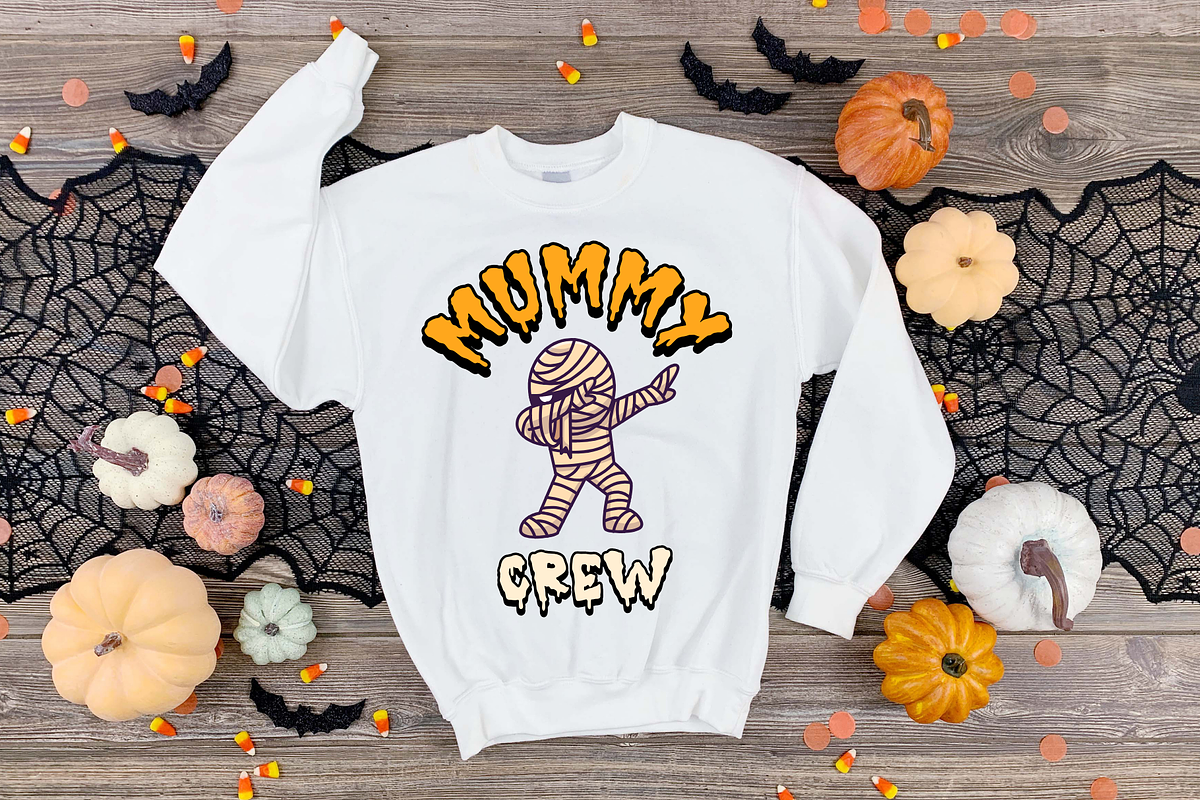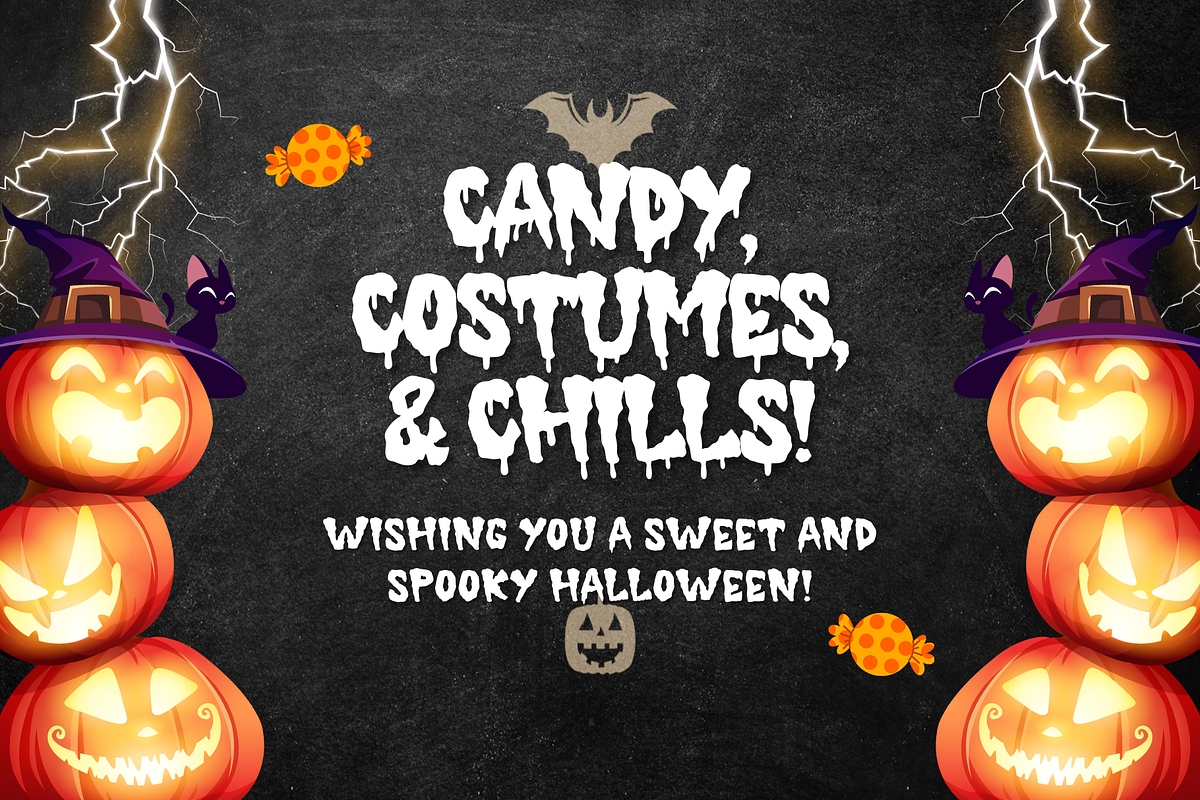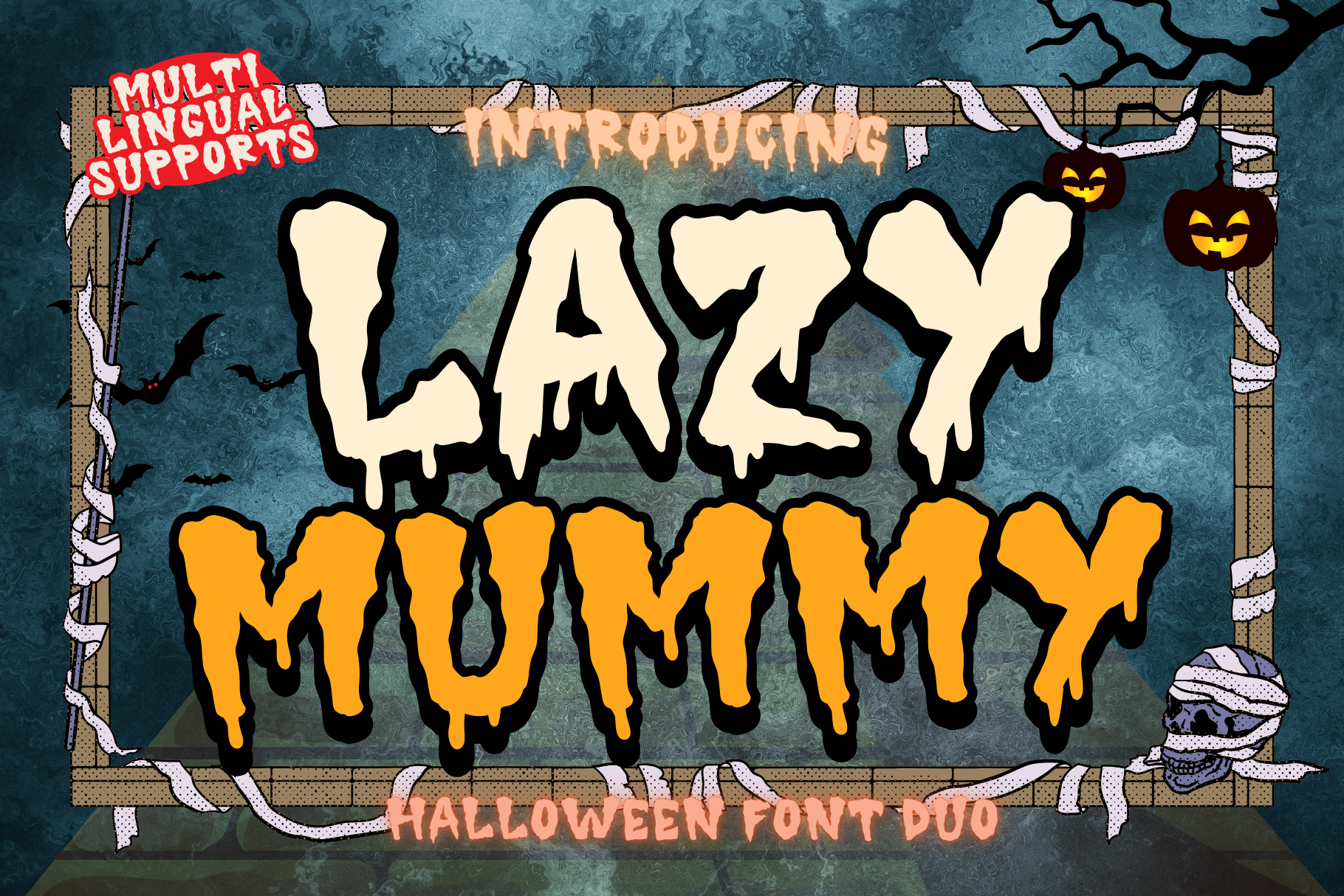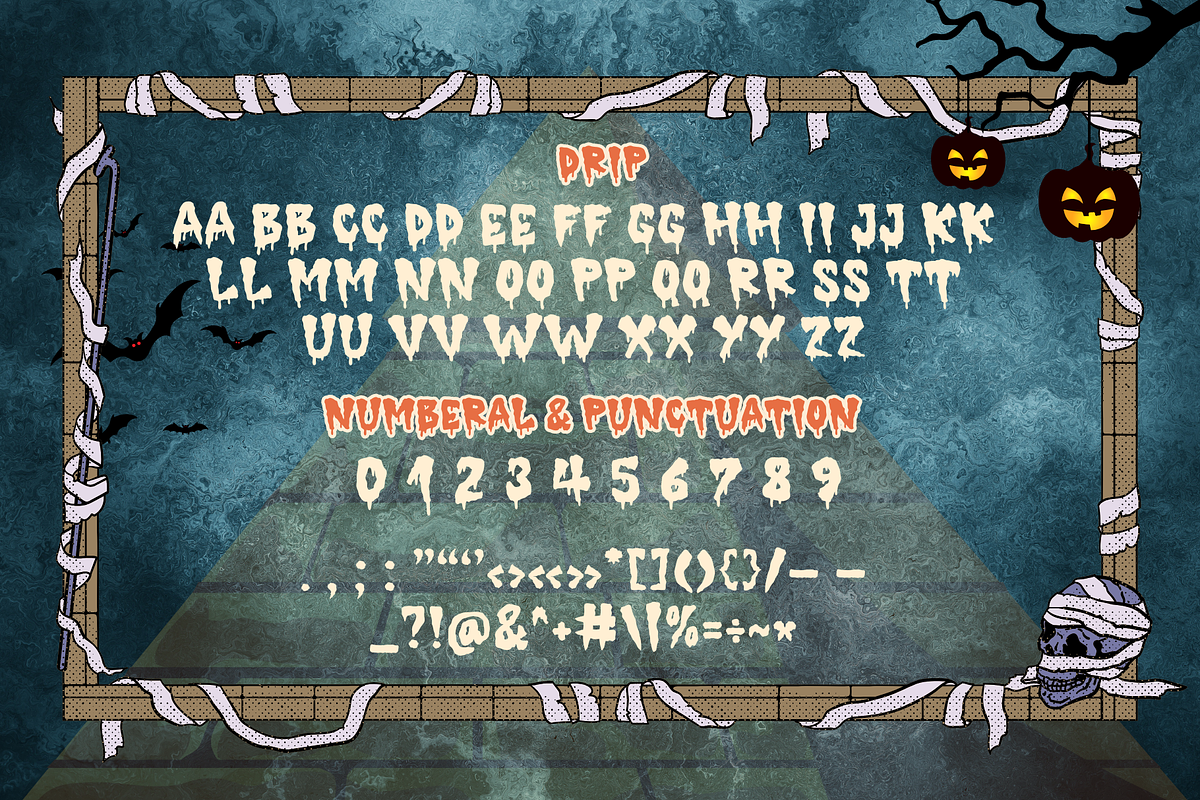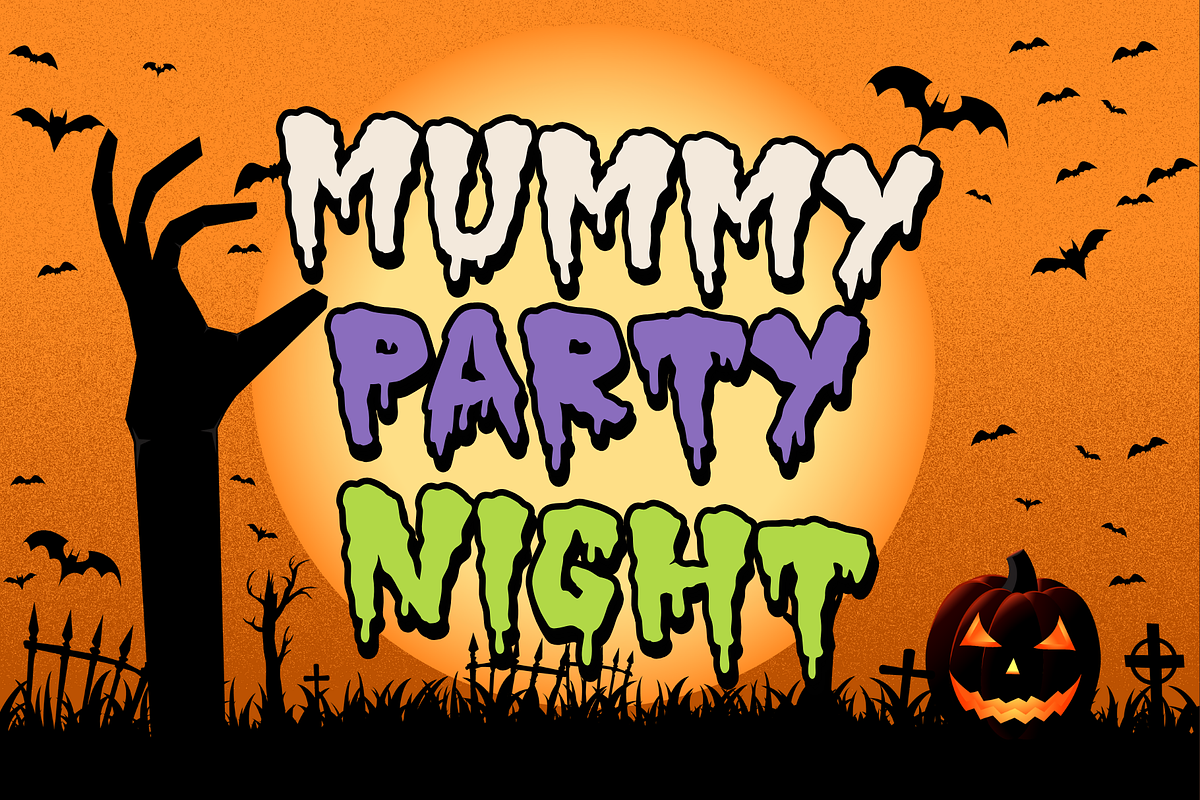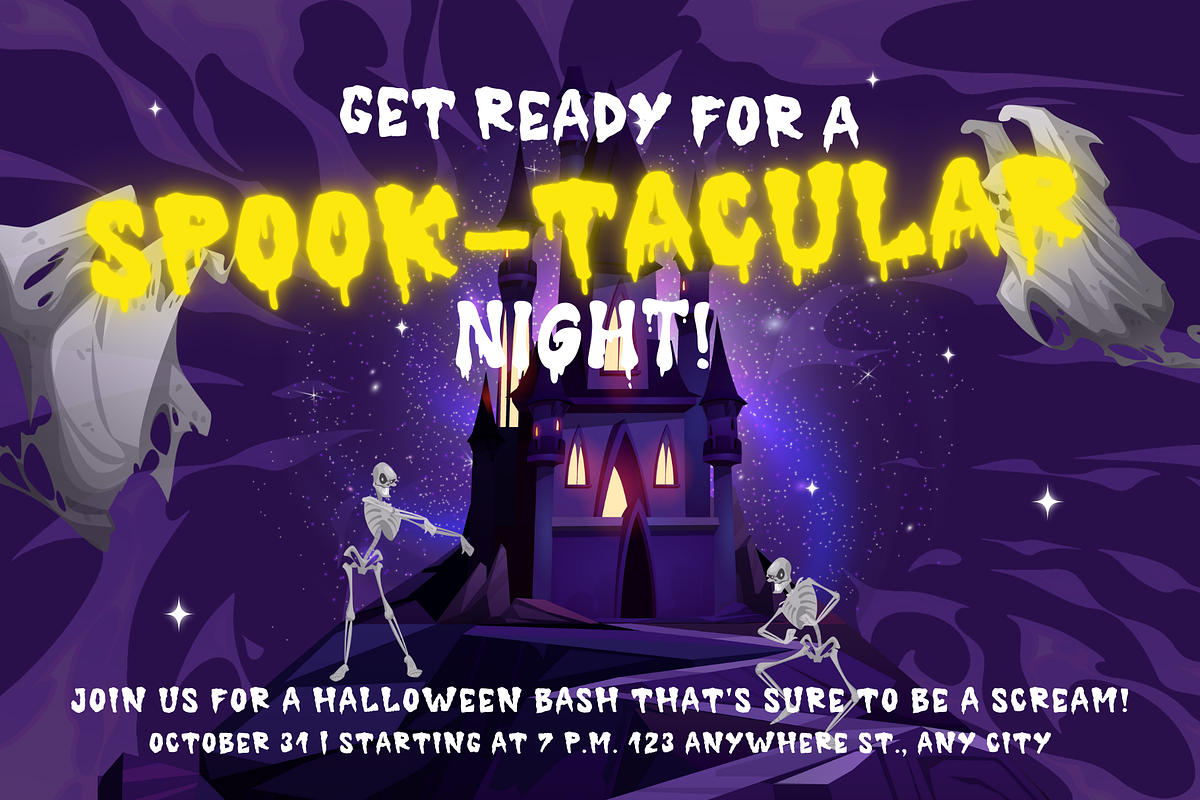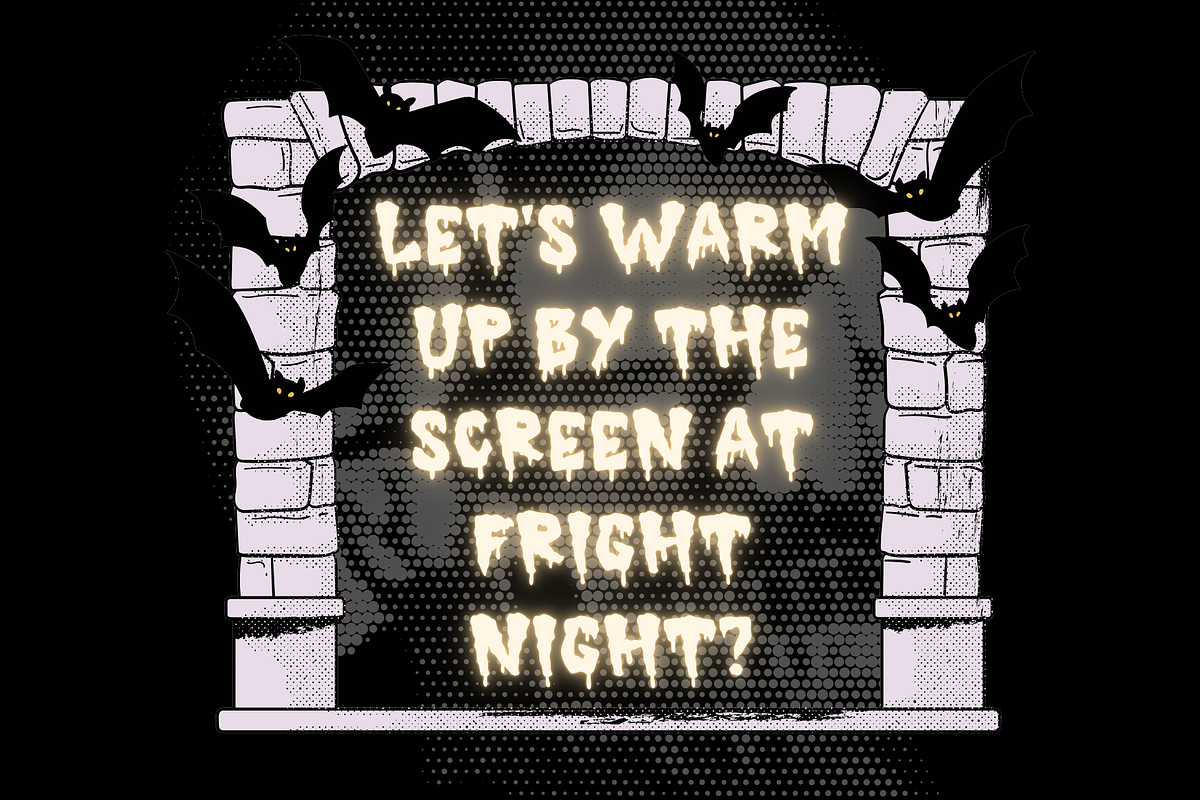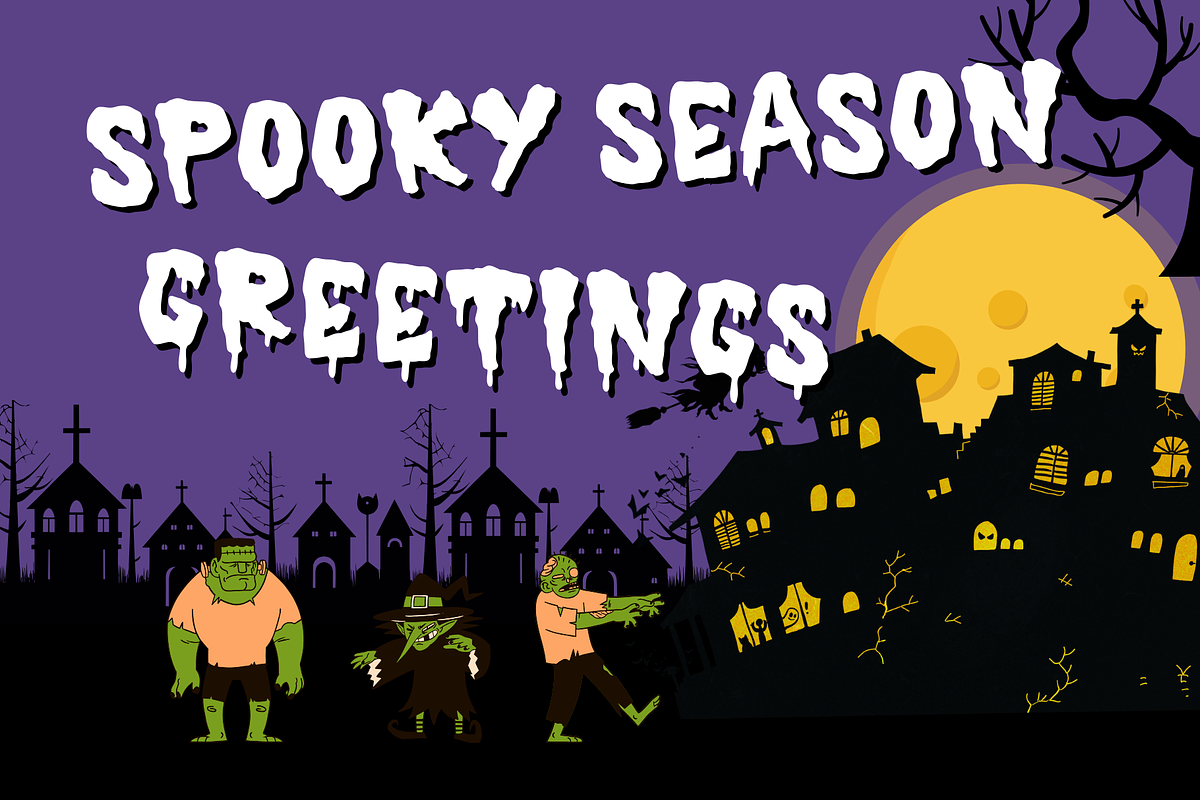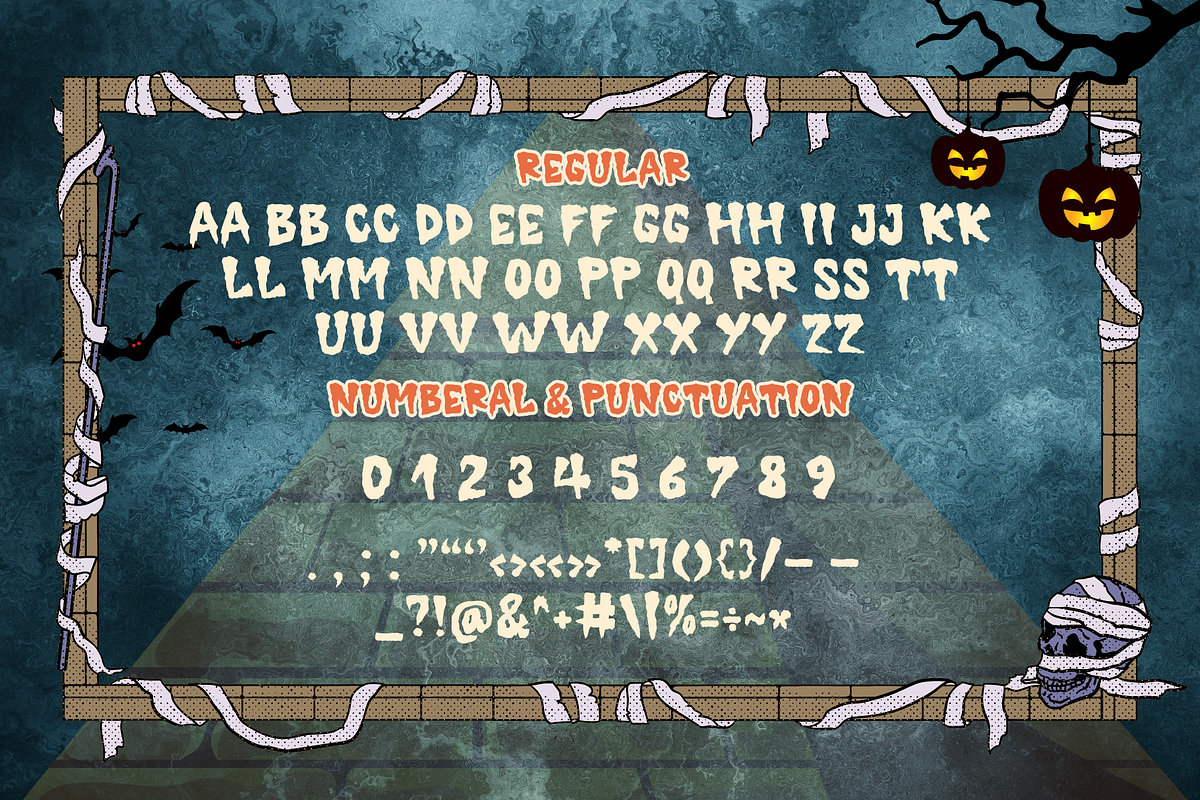
Lazy Mummy is a Duo Halloween font
Lazy Mummy is a Duo Halloween decorative font. It embodies playfulness and authenticity and is the perfect choice for all your favorite projects, such as blog posts, logos, branding, ads, invitations, greeting cards, planners, photo albums, decorations, and more. Add it to any of your designs, and enjoy the results!